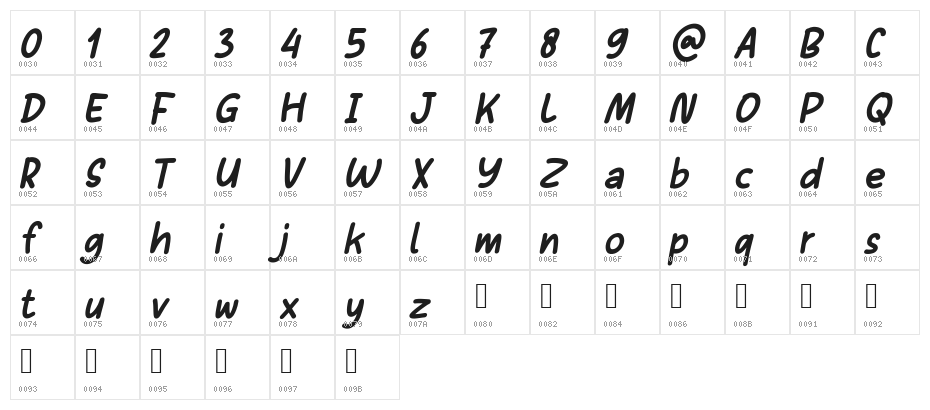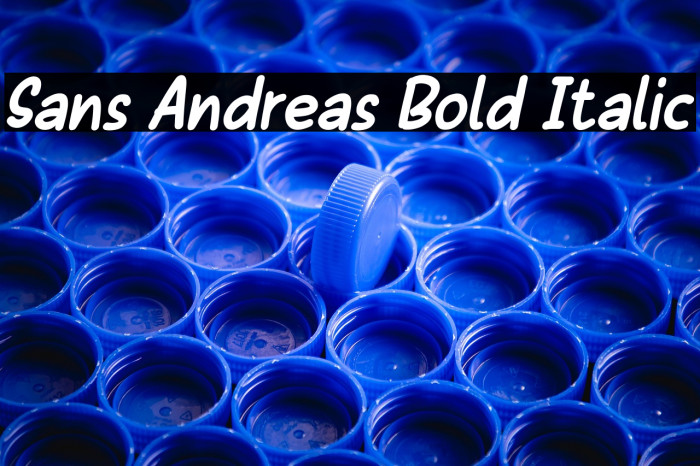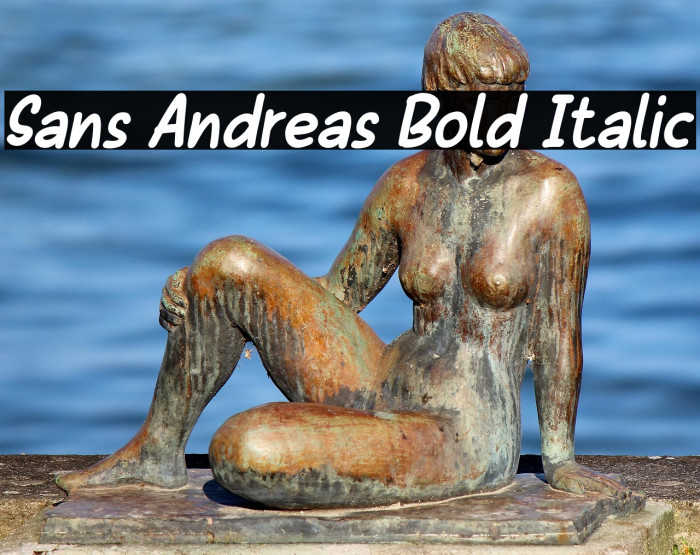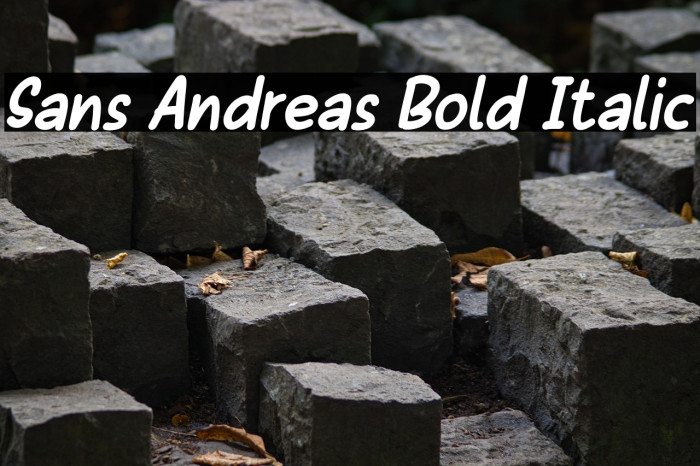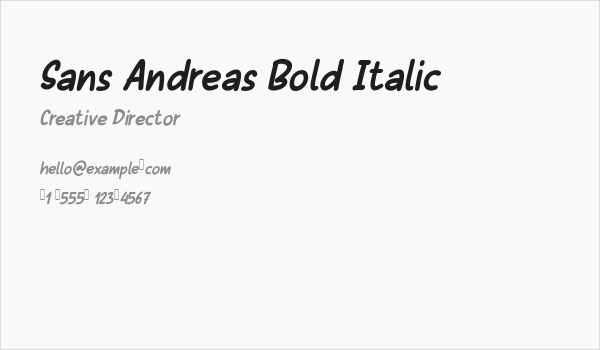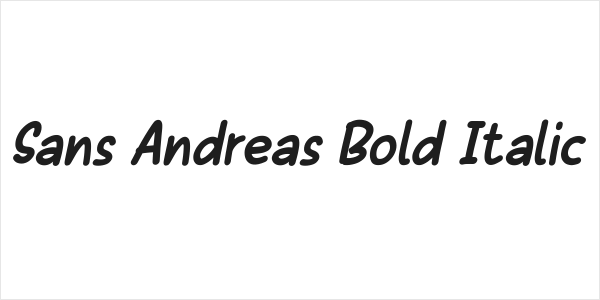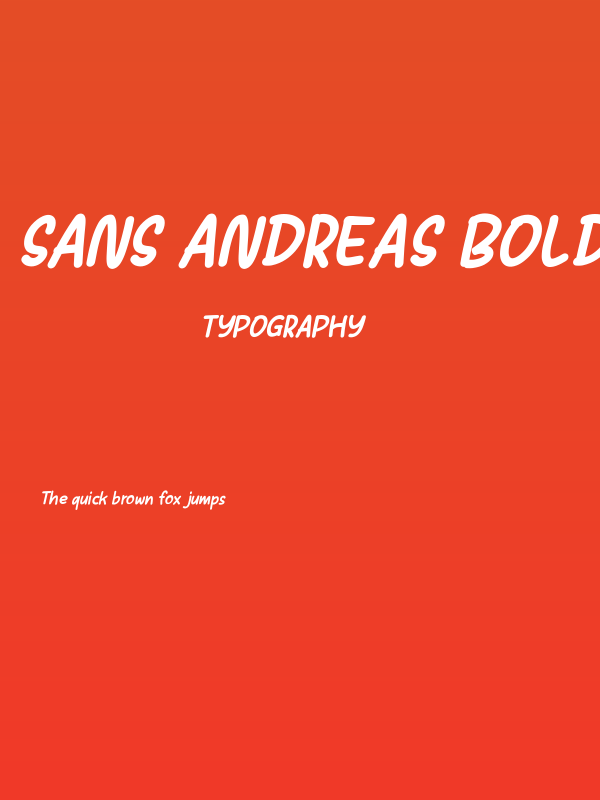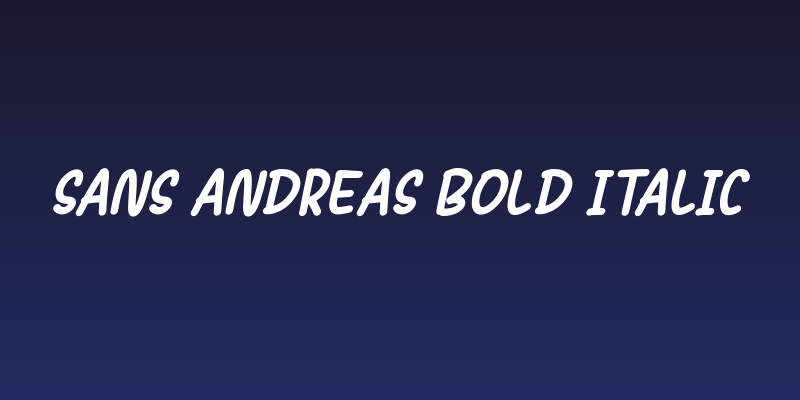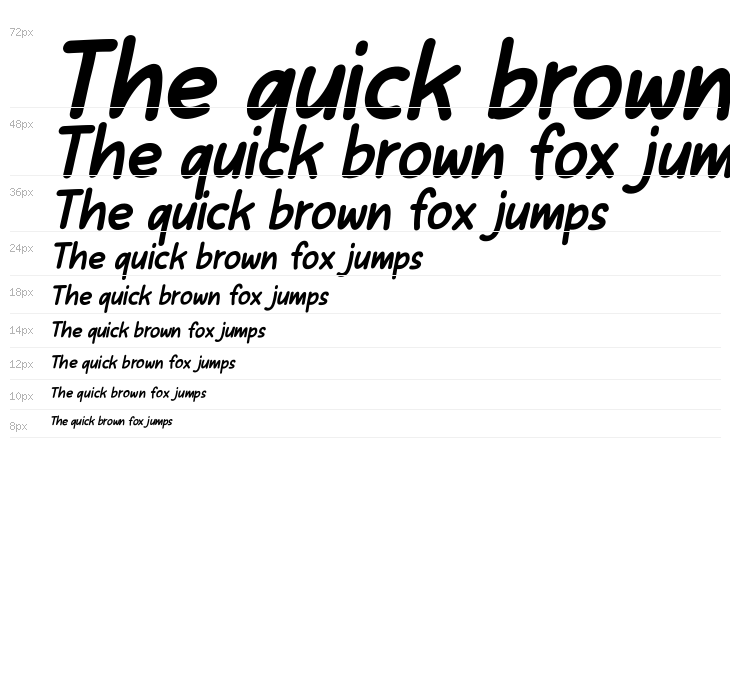
Sans Andreas Bold Italic Font
This font features a bold and italicized style with a playful and dynamic appearance. The characters are rounded and slightly slanted, giving them a sense of motion and energy. The strokes are consistent in thickness, contributing to a cohesive look across all characters. The uppercase and lowercase letters maintain a uniform style, while the numerals are clear and easily distinguishable. The special characters blend seamlessly with the alphabet, ensuring versatility in various design contexts.